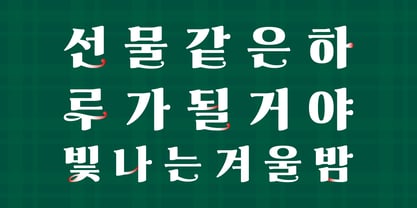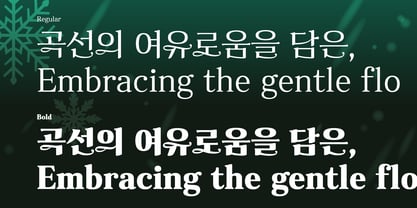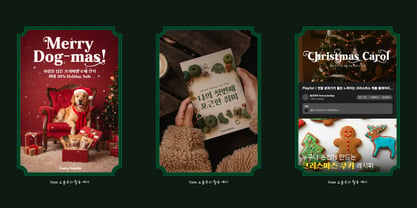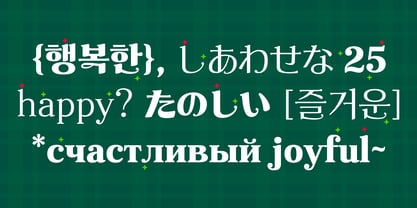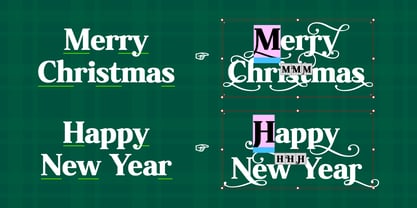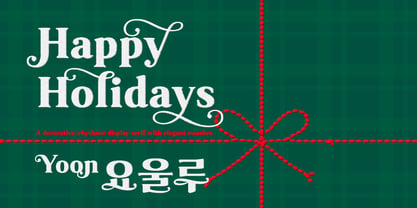
Yoon Joulu
by Yoon Design
The Yoon Joulu Font Family was designed by Yoon Design Team and published by Yoon Design. Yoon Joulu contains 2 styles and family package options. More about this family
Named after the Finnish word for Christmas, Yoon Joulu captures winter joy. Elegant ornamental curves at stroke ends resemble festive decorations, bringing a sparkling, celebratory warmth to holiday designs.
Family size: Multi-weight family.
Glyph count: 2,780 hangeul glyphs, 95 Latin glyphs, 986 KS symbols, and 64 alternate glyphs.
Language support: Multi-lingual support for English, Korean, and more.
Designers: Yoon Design Team
Foundry: Yoon Design
Founded in 1989, Yoon Design is one of the leading foundries for Korean font design. ¶Yoon Design makes aesthetic and scientific formative fonts with passion and talent of experienced designers based on accumulated know-how.¶¶YoonGothic / YoonMyungjo families, representative font families of Yoon Design's, are the most common fonts up to the present in Korea and always ranked first places on preference of designers and customers. For the progress of typography field in Korea, Yoon Design will constantly open a new horizon.¶¶CJK font project, led by Yoon Design and cooperated with representative font companies in Japan and Taiwan, is a leading project which brought innovation of Asian font market.